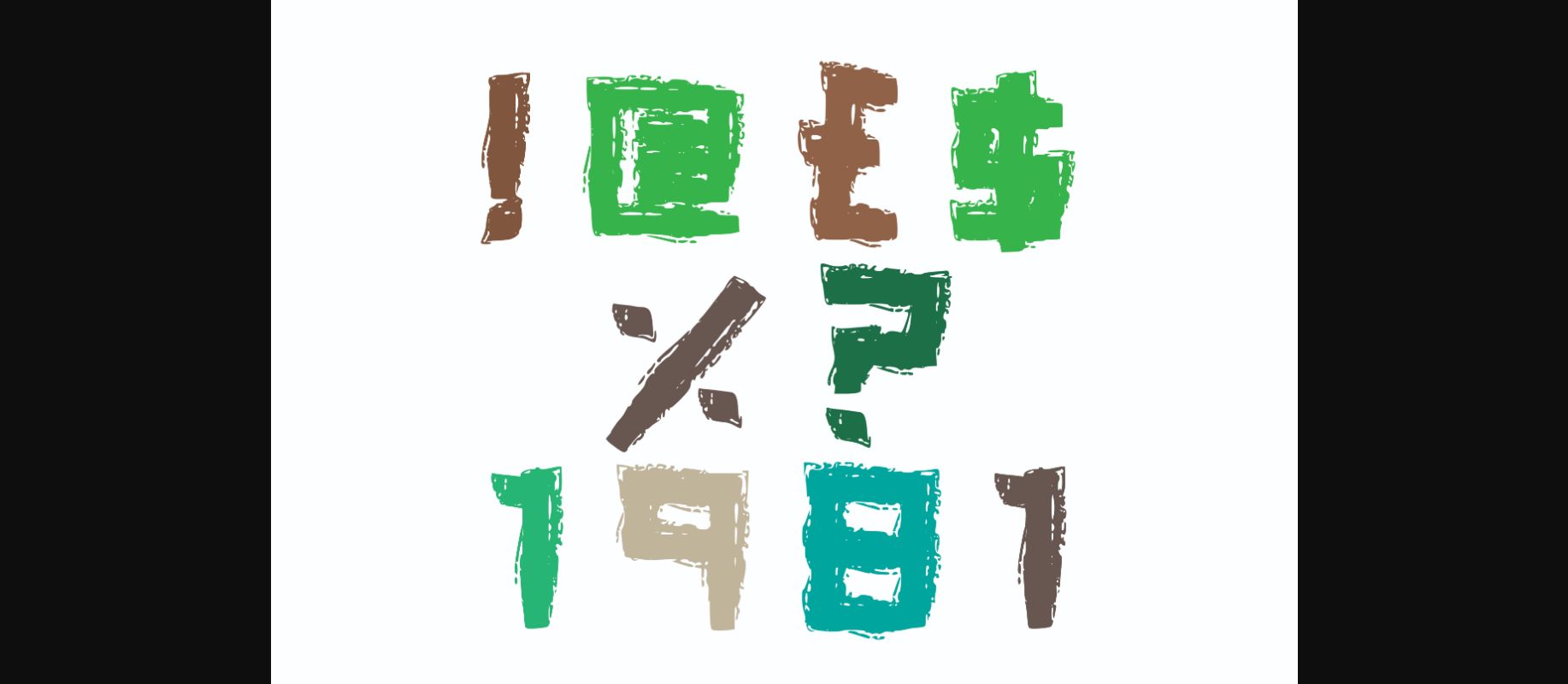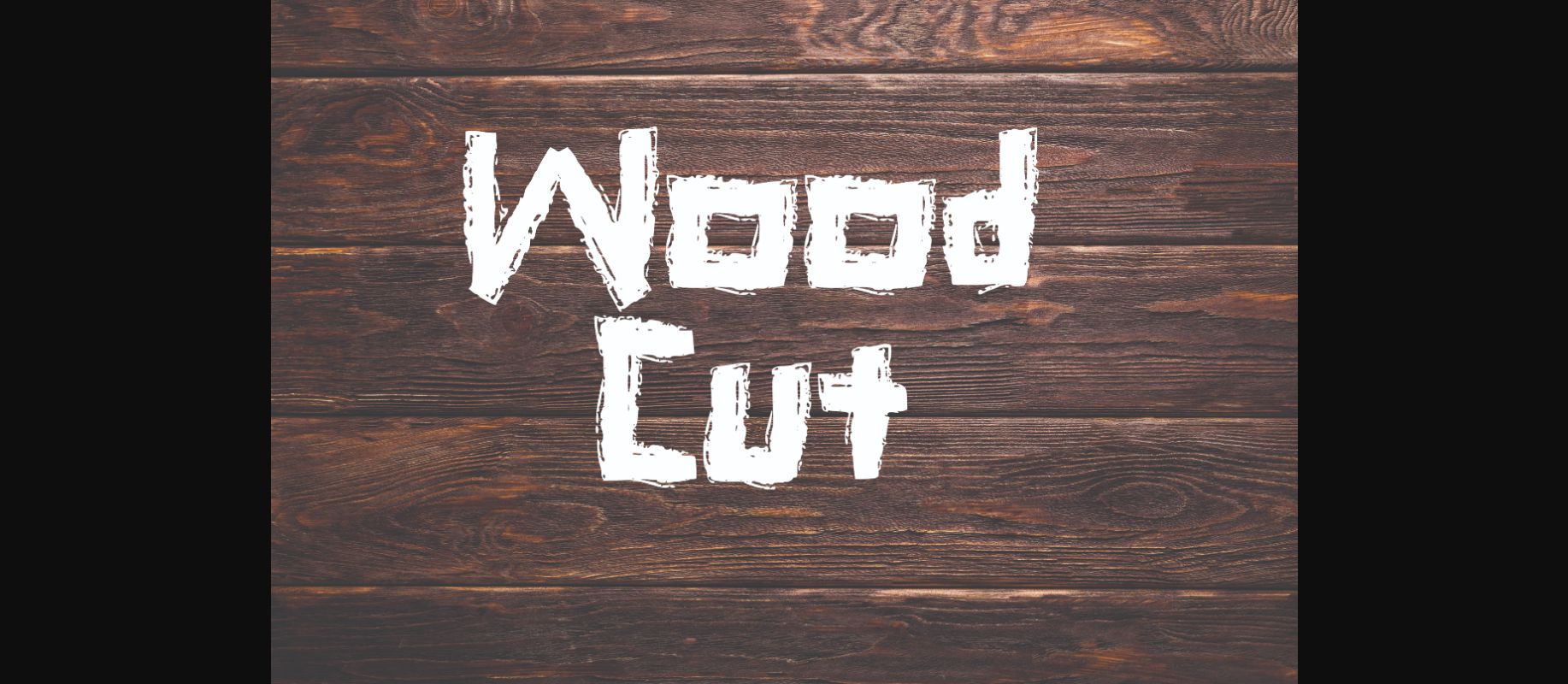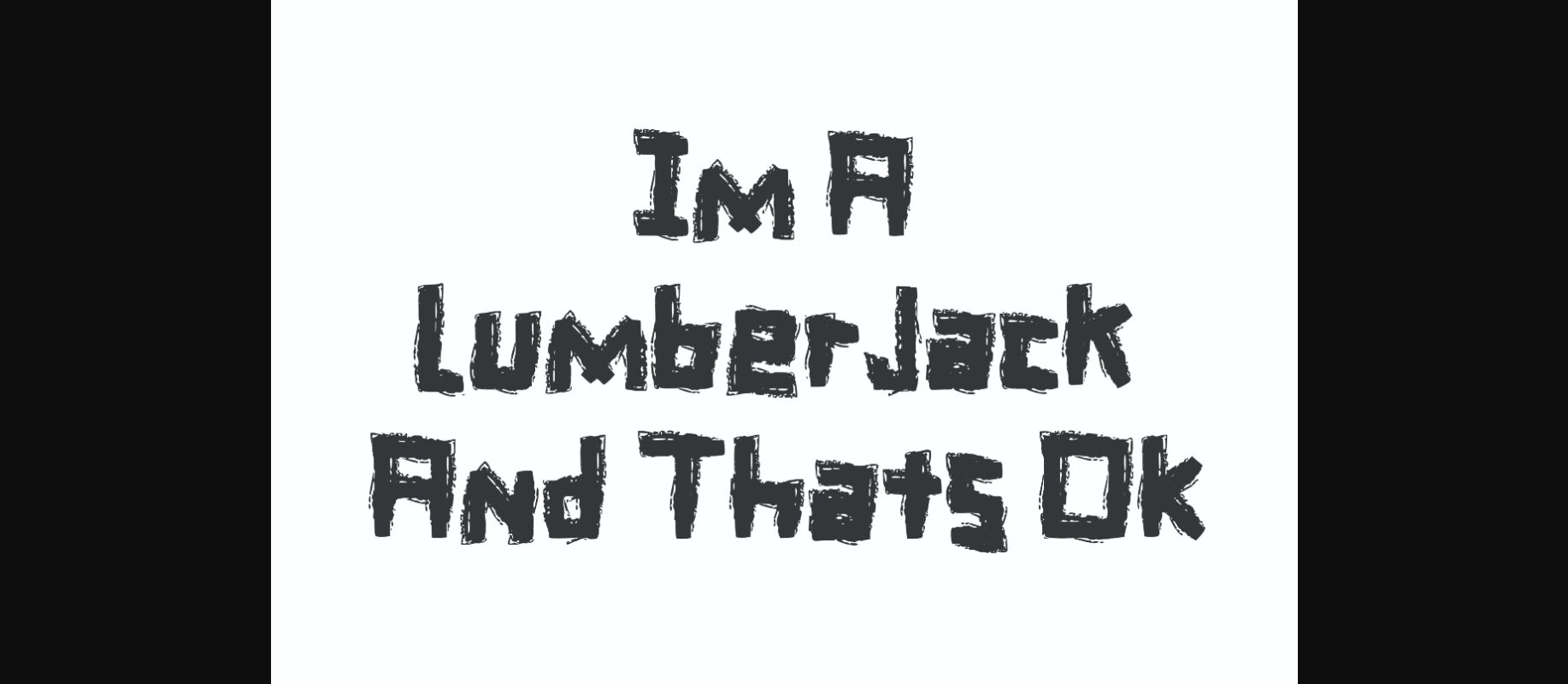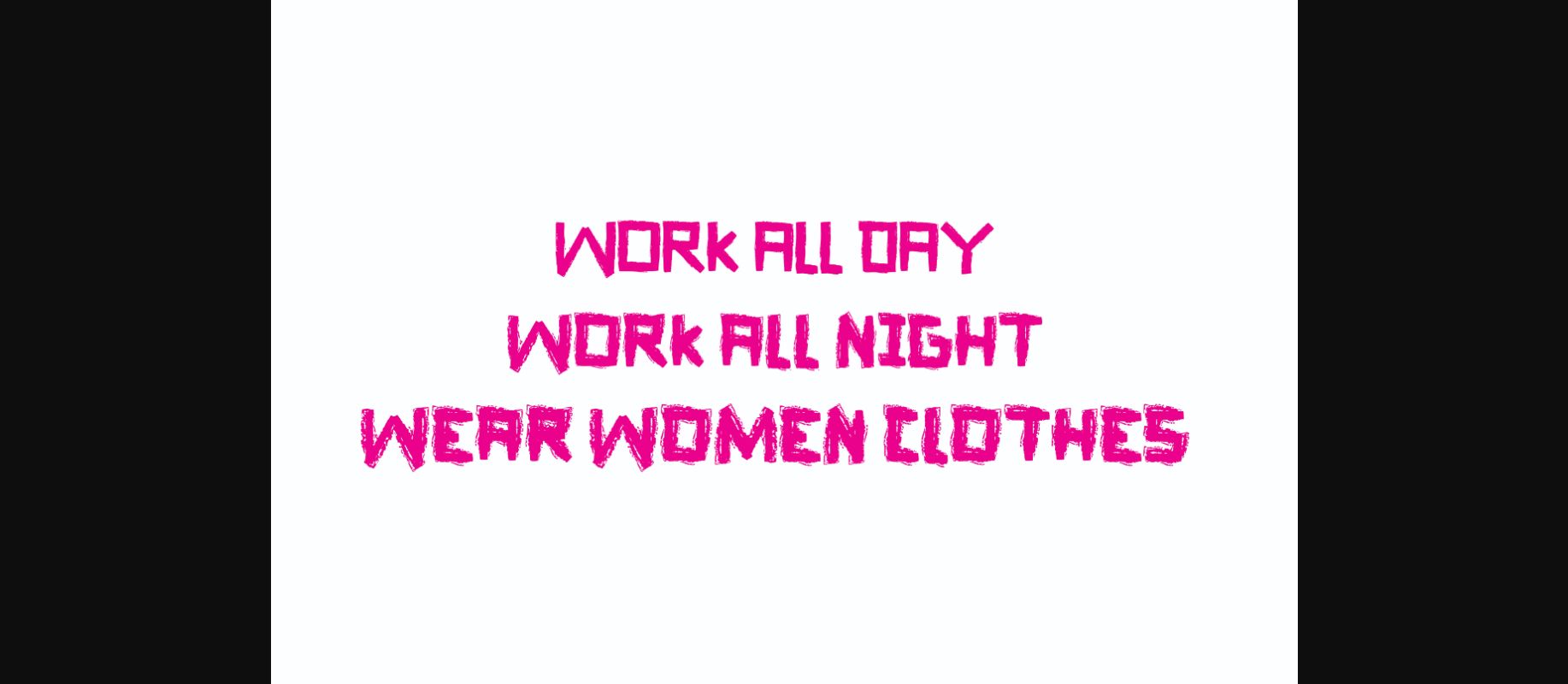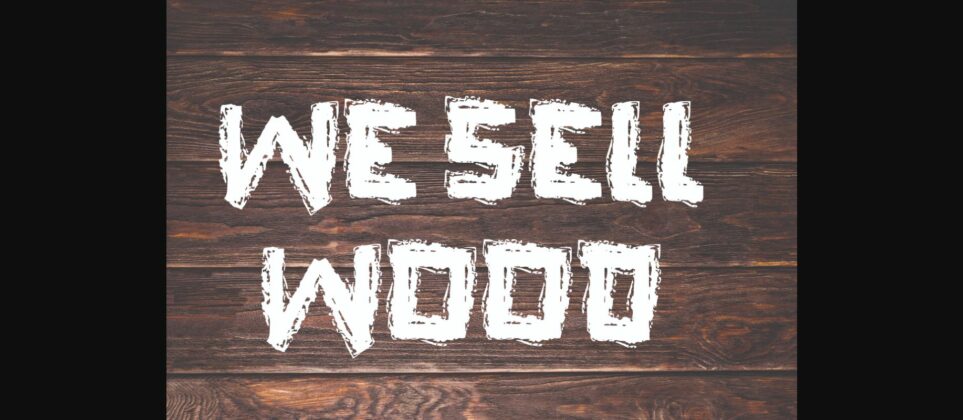
About Wood Cut Font
The smell of burning timber, the snap and crackle of logs on the fire. Get inspired with this bold wood-textured font that looks like it’s just been freshly chopped from wood.